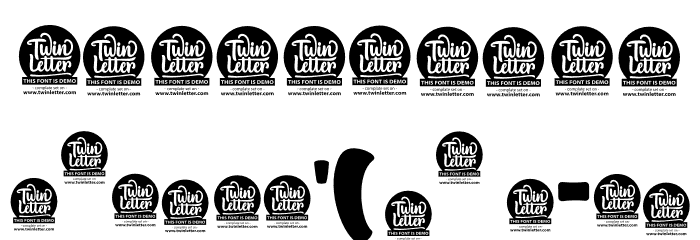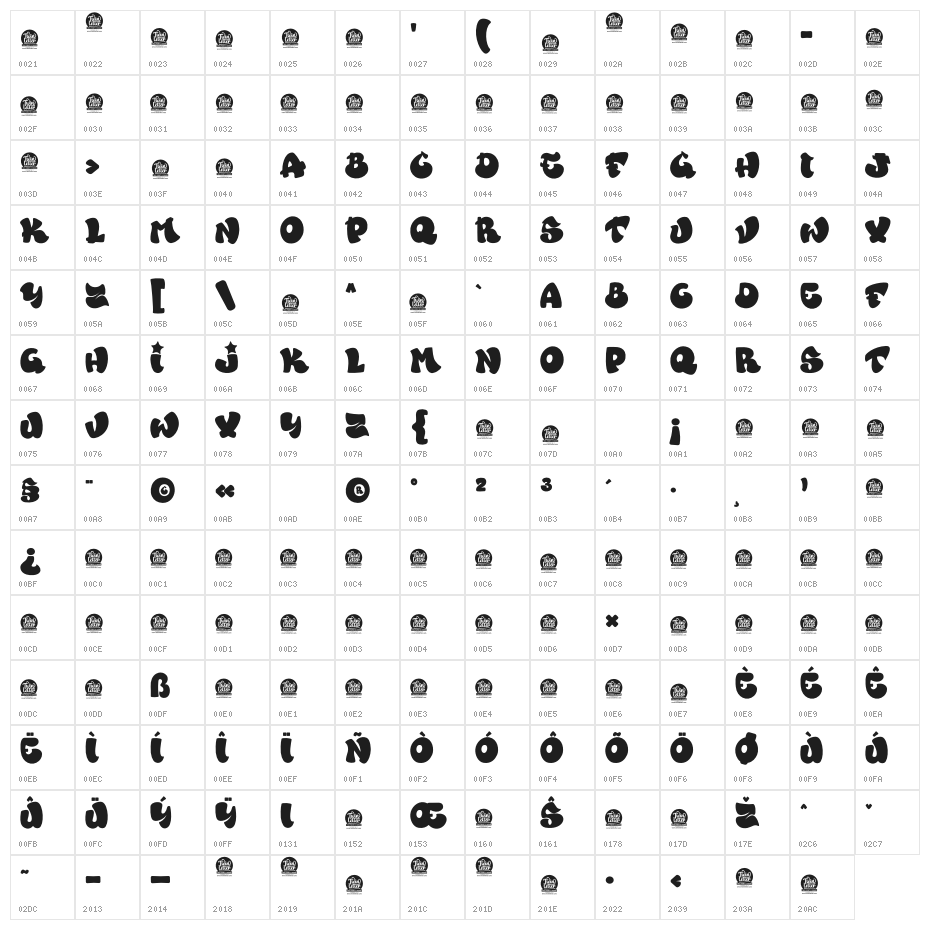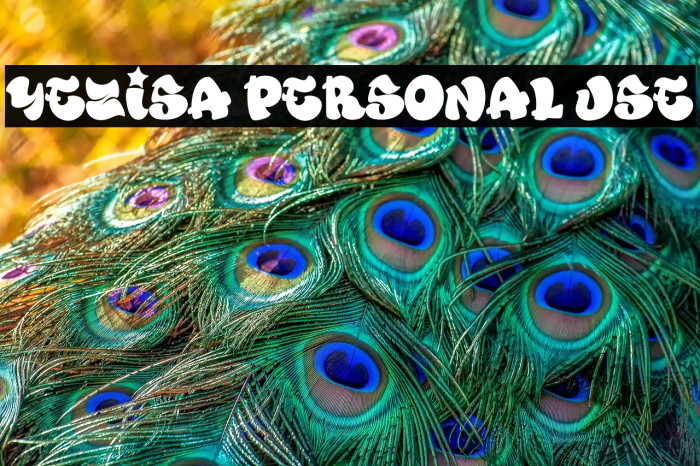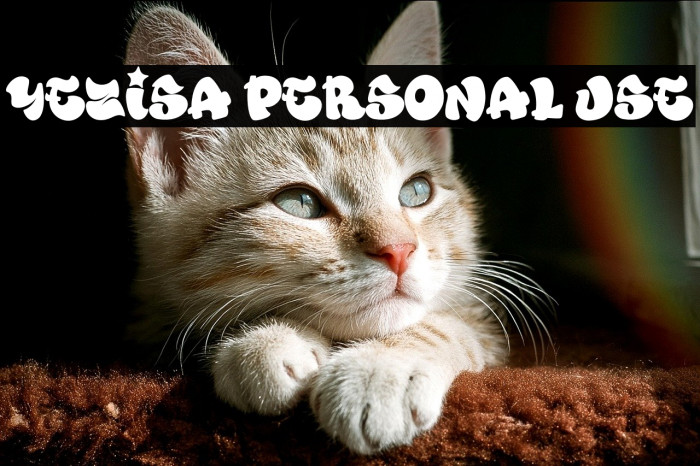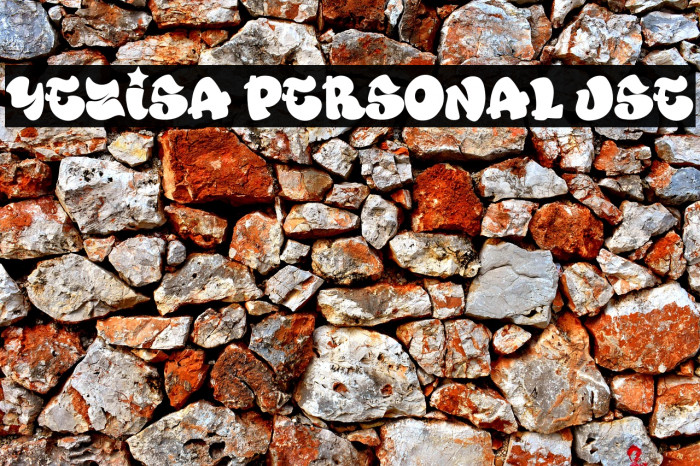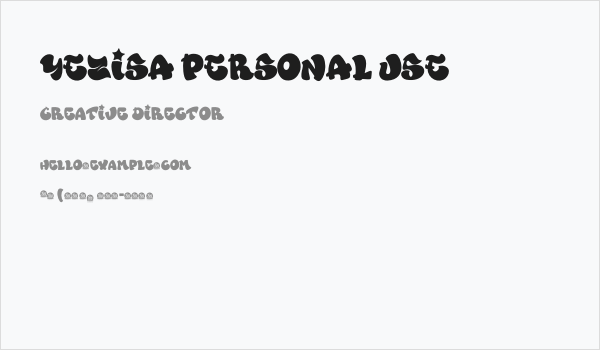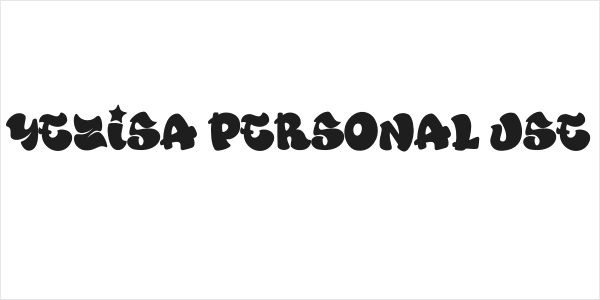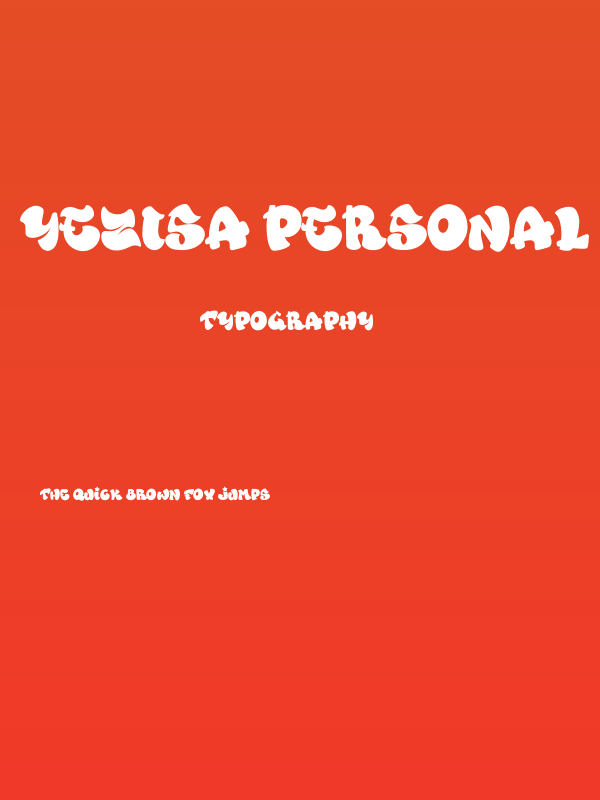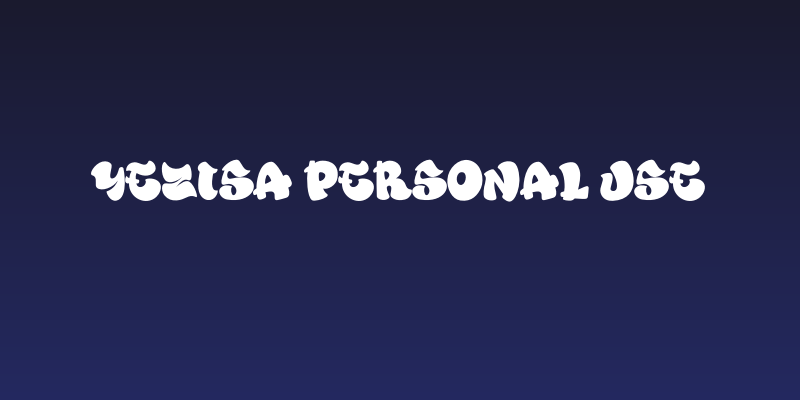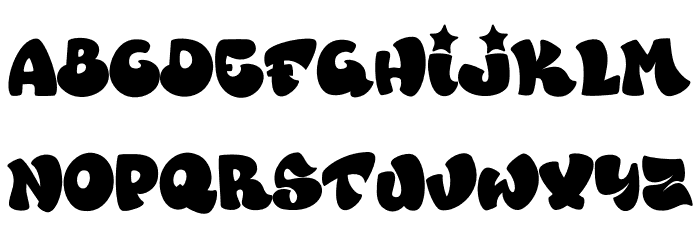
YEZiSA PERSONAL USE Font
YEZiSA PERSONAL USE Description
This font features a bold and playful design with a strong emphasis on rounded shapes and thick strokes. The characters are highly stylized, with a whimsical and decorative flair that includes unique elements such as star-shaped accents on some letters. The uppercase and lowercase letters maintain a consistent style, creating a cohesive look. The numbers and special characters follow the same bold and rounded aesthetic, making them easily recognizable and visually appealing. This font is ideal for projects that require a fun and eye-catching typeface.
| Overall Style | Playful, Decorative |
| Proposed Projects | Ideal for children's book covers, playful branding, party invitations, and eye-catching posters. |